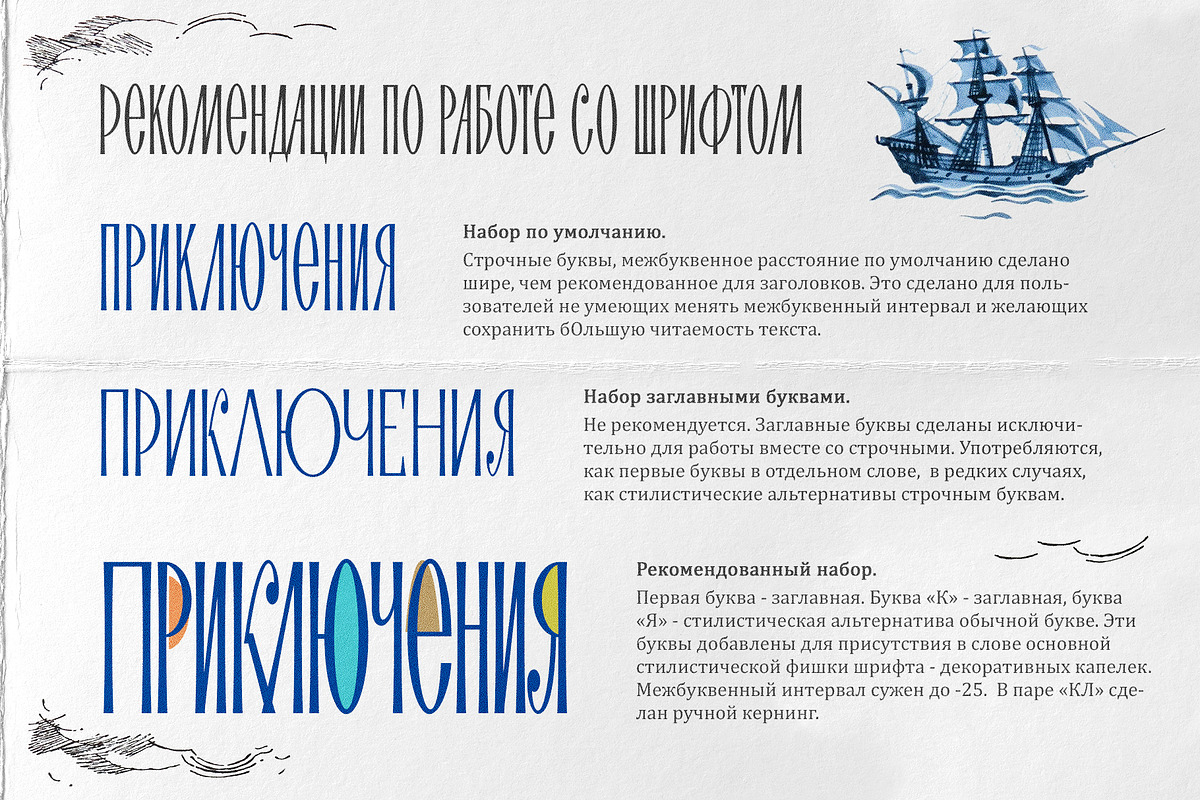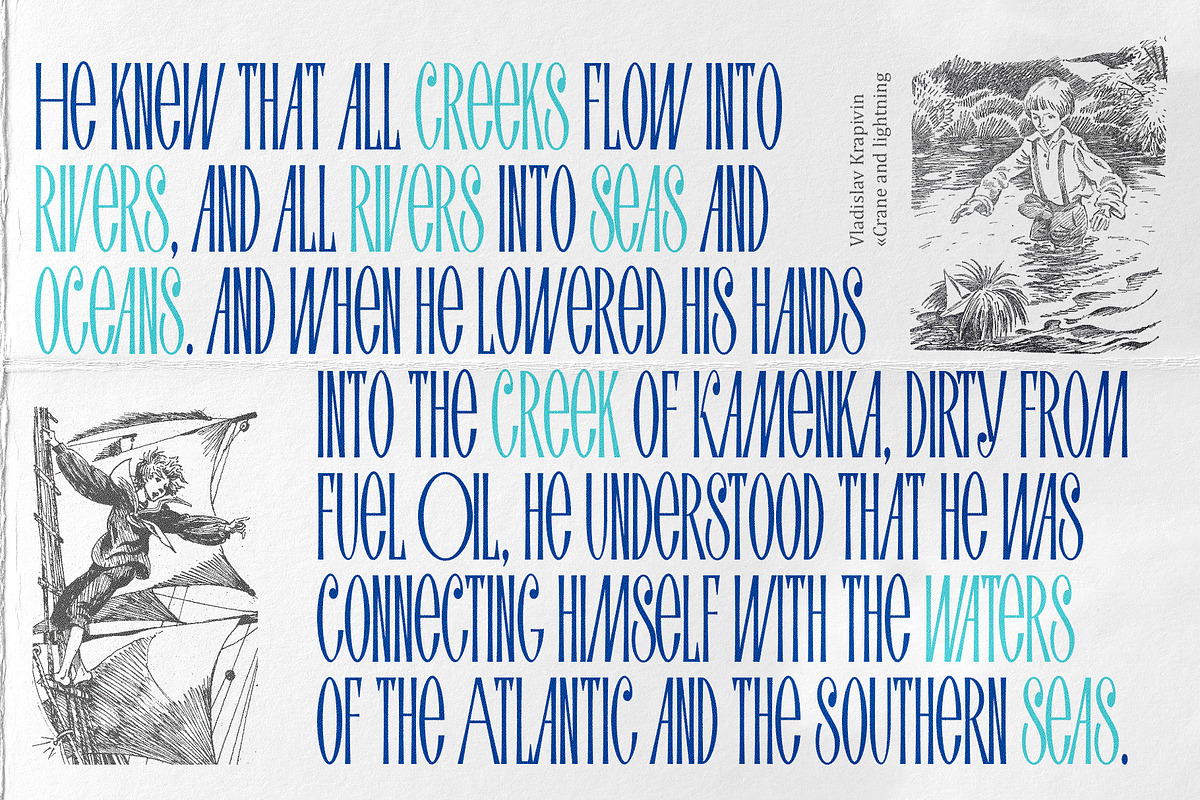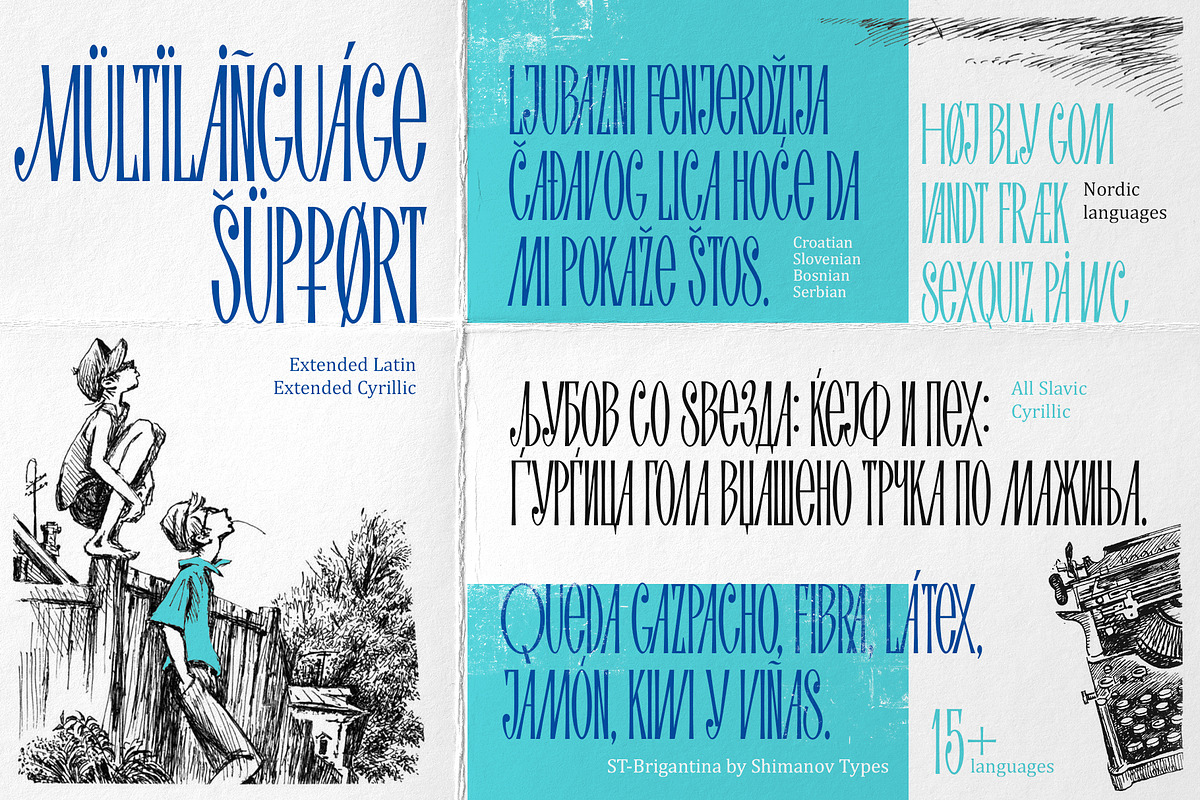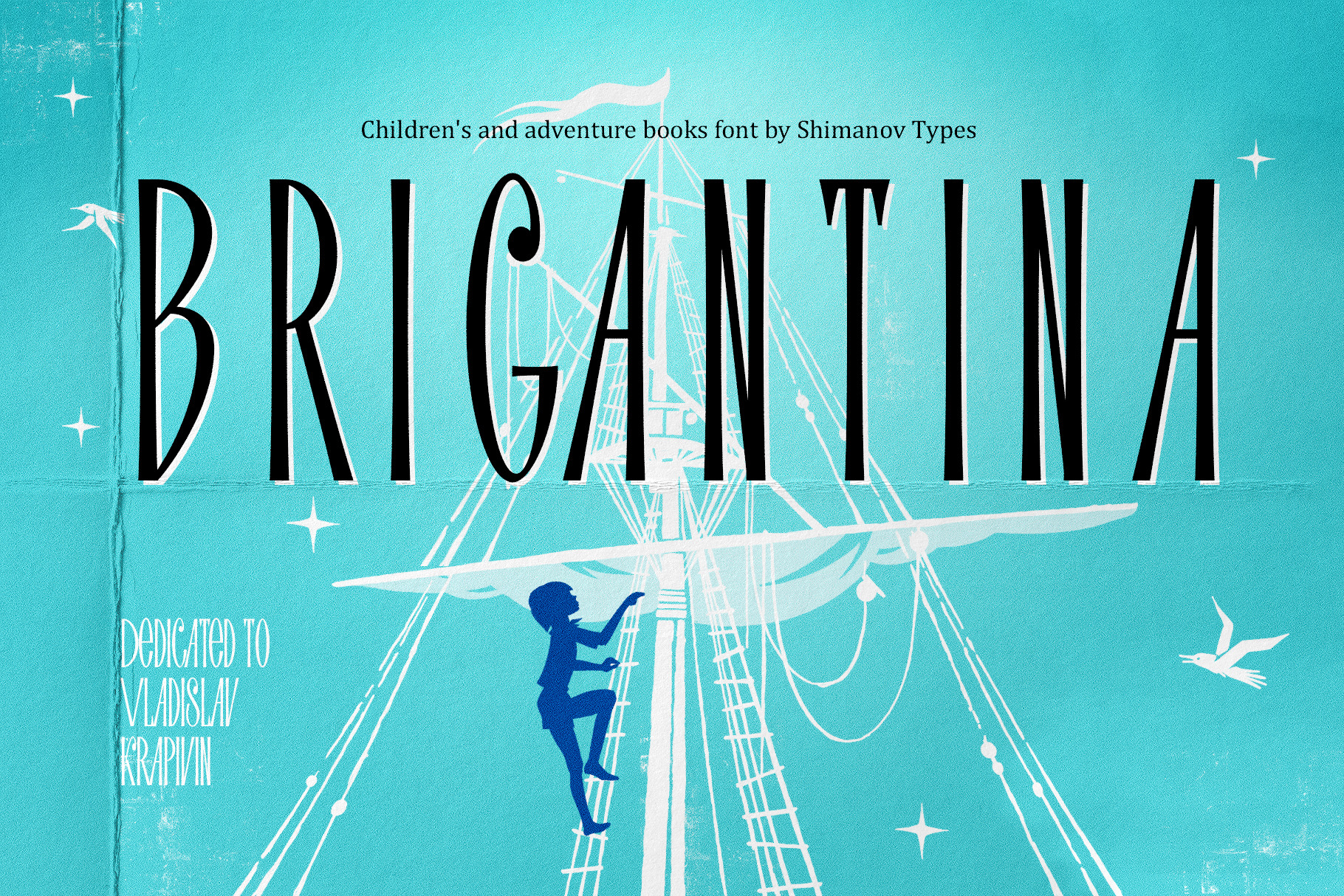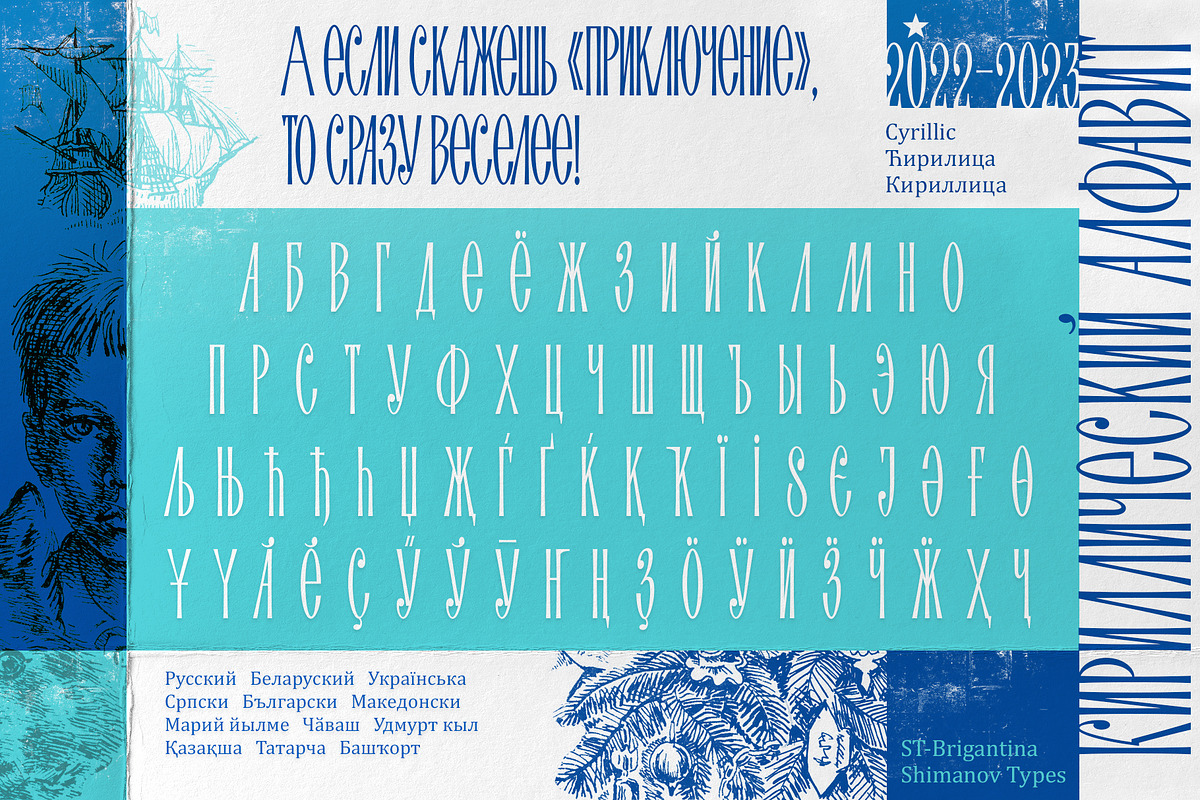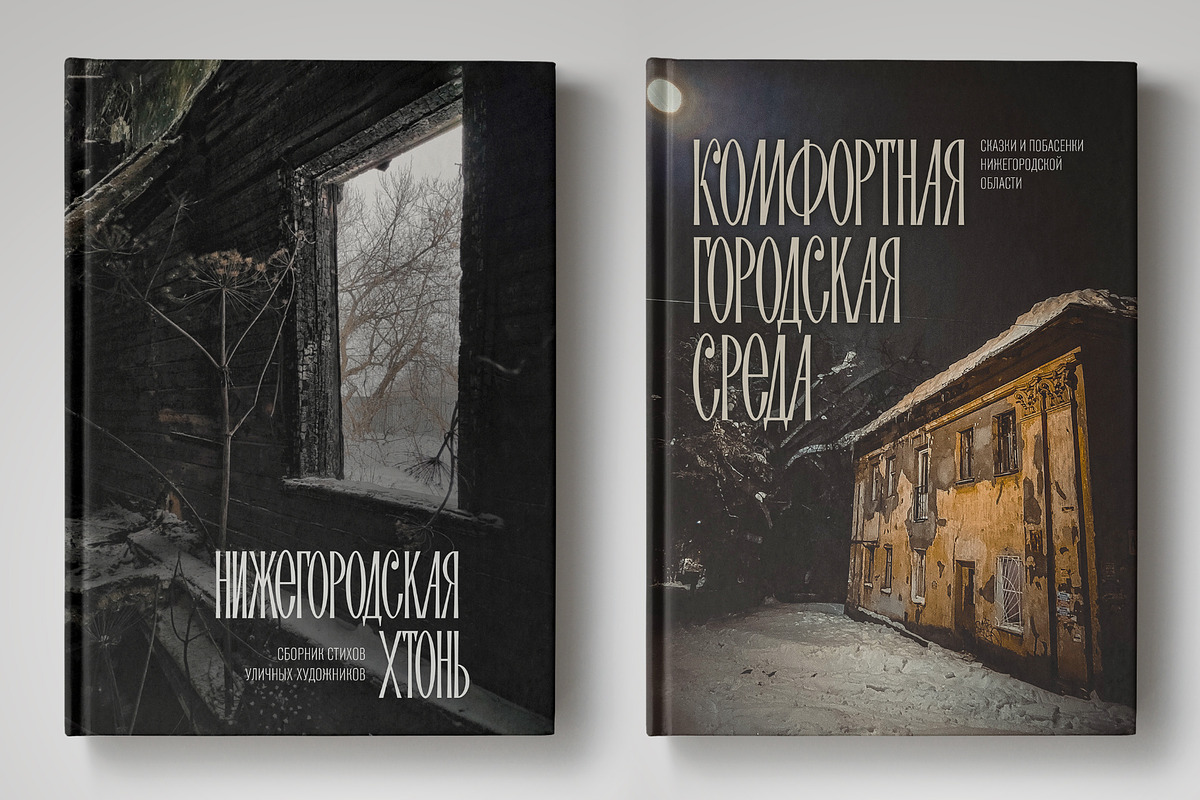
ST-Brigantina cloak-and-sword font
The font "ST-Brigantina" dedicated to great Soviet children's book writer Vladislav Krapivin. His books were abour brave boys and girls in adventures and complicated life situations. Few generations of Soviet kids are raised on his books and a number of films were made based on his stories. This font inspired by posters, movie titles and covers of Soviet children books. It has Extended LATIN and Extended CYRILLIC letters. "ST-Brigantina" created for titles, poster design, web design, branding and packaging works, illustrations, badges and other typography works. Pls, don't use it for for typing large arrays of text.
Supports 15+ languages: Belarusian, Bosnian, Bulgarian, Croatian, Dutch, English, German, Gaelic, Macedonian, Norwegian, Russian, Serbian, Swedish, Spanish, Slovenian, Ukrainian, Tatarian, Udmurt, Chuvash and probably others )